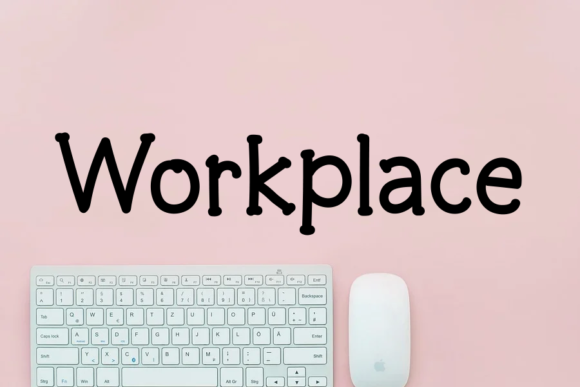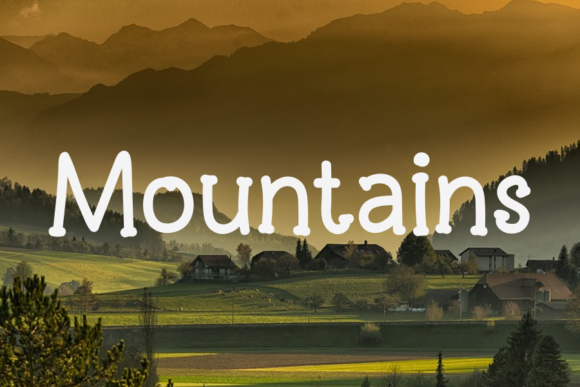
Home Sweet Font
db-ku.com - Script & Handwritten -- Home Sweet is a well rounded and unique handwritten font. Add this cute and friendly looking font to each of your, invitations, letters or favorite design ideas, and you will be astounded by the outcome.